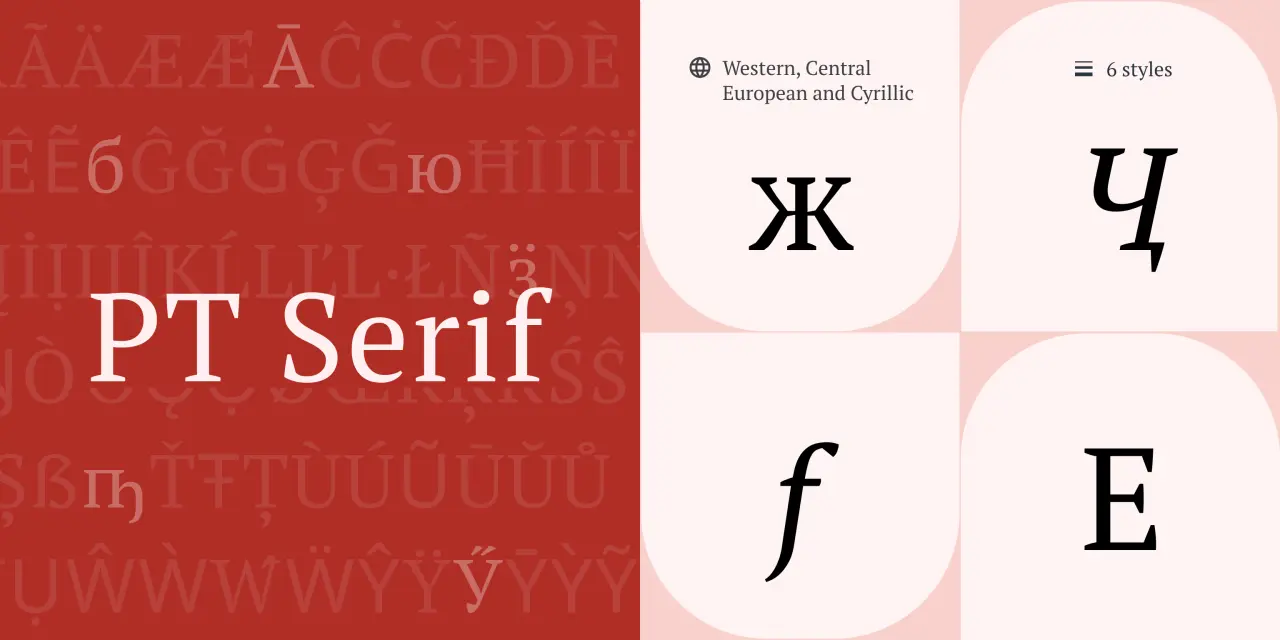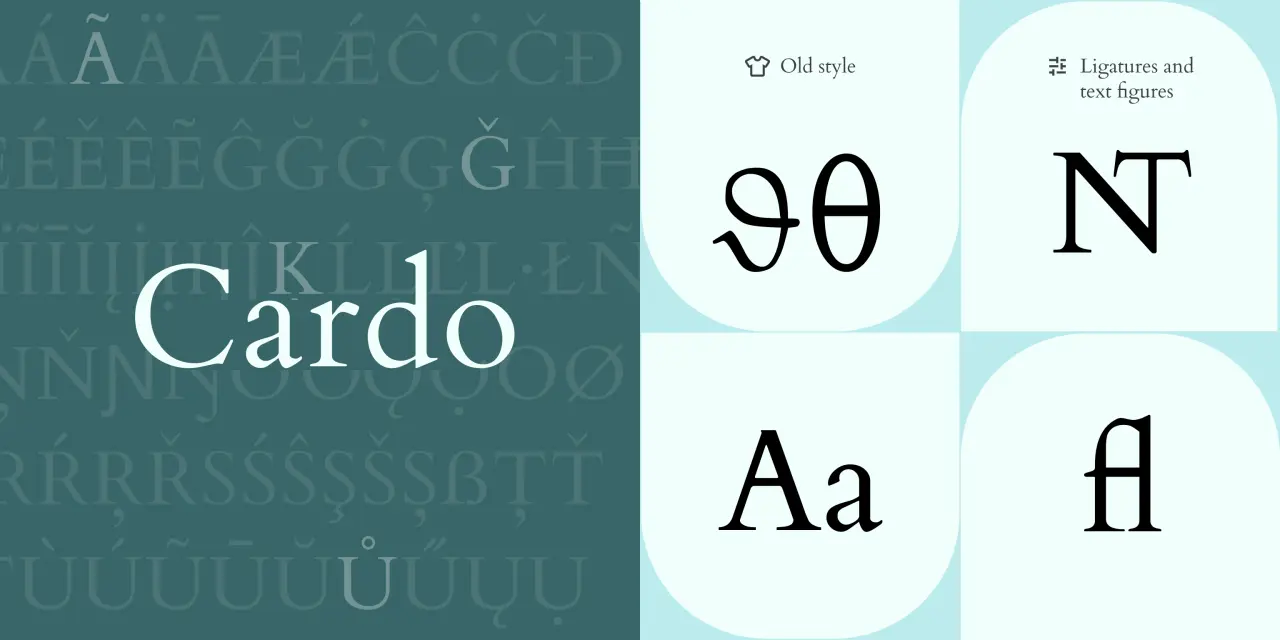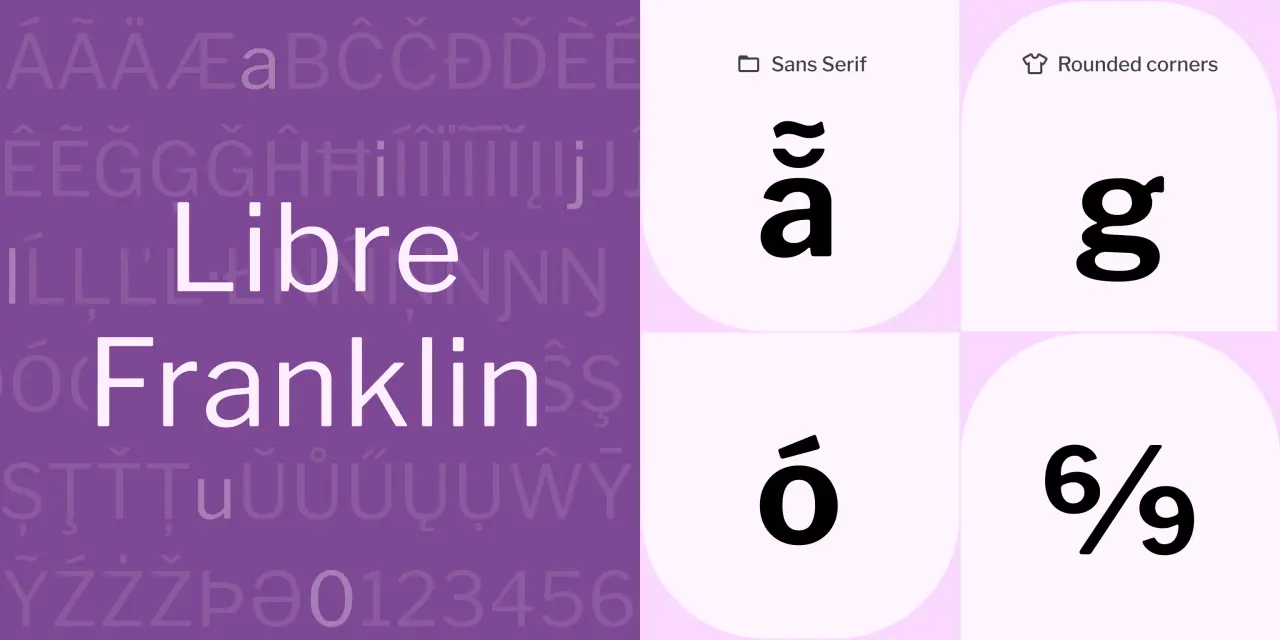
Free fonts are great, and there are thousands on the web to choose from. The problem is, though, most of them can be a bit overused or underwhelming. So how can you save money on type while still getting the high quality you'd expect from a paid-for asset? Two words: Google Fonts.
How to choose
So how do you choose the best Google Font for your project? First, you'll need to check if it's suitable for the design elements you're using. Some fonts, for example, suit normal-sized body text but not large headlines, and vice-versa. You'll also want to know that the font family contains all the features you need. For example, is the font available in a sufficient range of weights and styles? Do you require multiple language support, numbers, fractions, etc.?
You'll also need to consider legibility: it's worth, for example, comparing the O and 0, l and 1, to see how distinguishable they are. And if you need lots of design flexibility, are there multiple widths and optical sizes (different versions of a typeface intended to be used at different sizes), or is the typeface available as a variable font?
With all that in mind, here are our pick of 20 great Google fonts to get started with. They're free and fast to download, with absolutely no commitment, so why not give them all try?
1. DM Sans by Colophon
DM Sans is a low-contrast geometric sans serif design intended for use in smaller text sizes. It was designed by Colophon as an evolution of the Latin portion of ITF Poppins by Jonny Pinhorn. It supports a Latin Extended glyph set, enabling typesetting for English and other Western European languages.
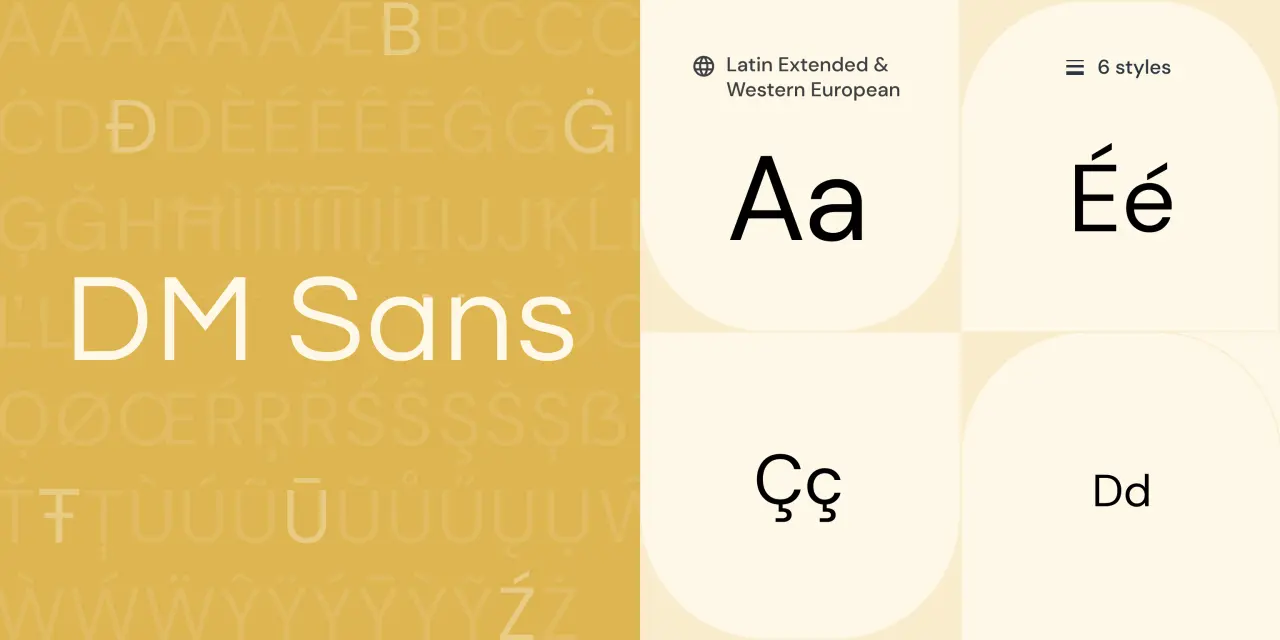
2. Space Grotesk by Florian Karsten
Space Grotesk is a proportional sans-serif based on Colophon's fixed-width Space Mono family (2016). Originally designed by Florian Karsten in 2018, it retains the monospace's idiosyncratic details while optimising for improved readability at non-display sizes.
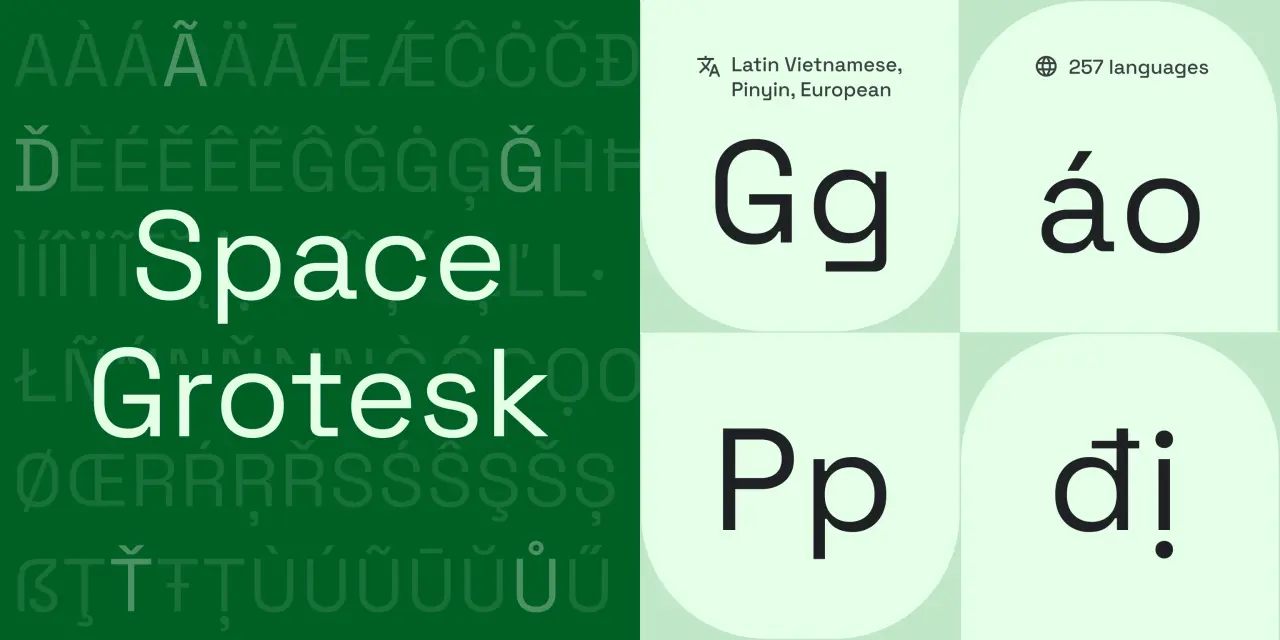
3. Inter by Rasmus Andersson
Led by Swedish software designer Rasmus Andersson, Inter is a variable font designed for computer screens, featuring a tall x-height to aid in the readability of mixed-case and lower-case text. It also includes several OpenType features, including tabular numbers, contextual alternates that adjust punctuation depending on the shape of surrounding glyphs, and a slashed zero for when you need to disambiguate zero from the letter O.
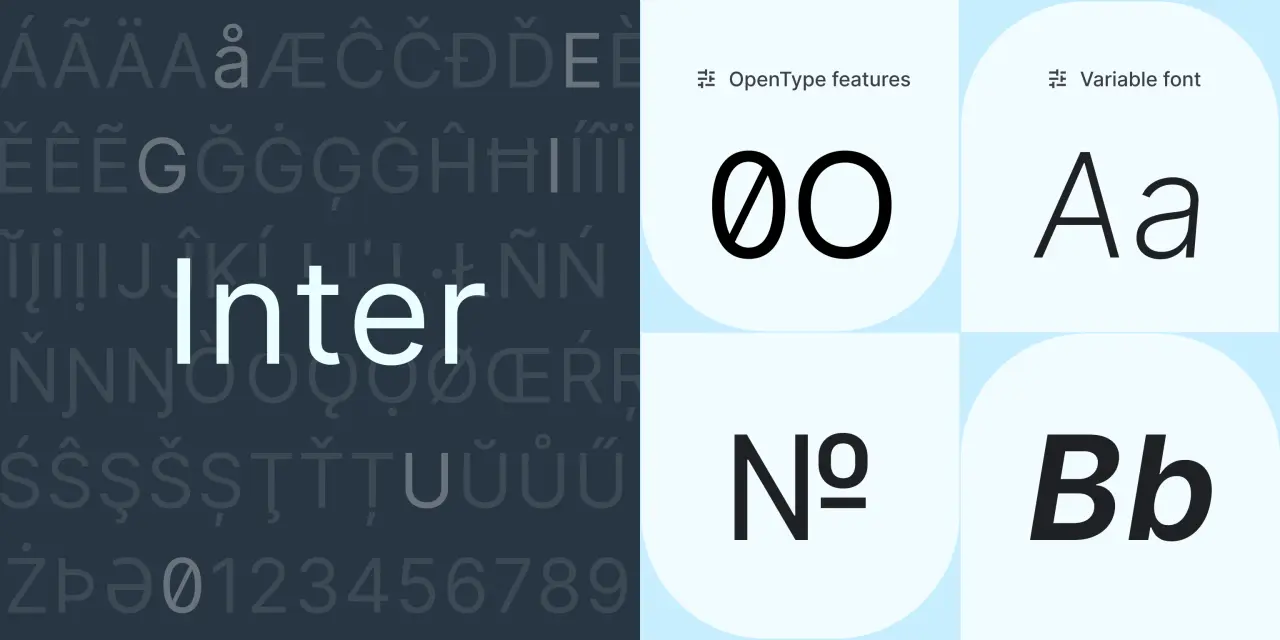
4. Eczar by Vaibhav Singh
Eczar is designed to bring liveliness and vigour to multi-script typesetting in Latin and Devanagari. Providing a strong mix of personality and performance, both at text sizes and in display settings, this font family offers a wide expressive range. The display qualities of the design intensify with a corresponding increase in weight, making the heaviest weights best suited for headlines and display purposes.
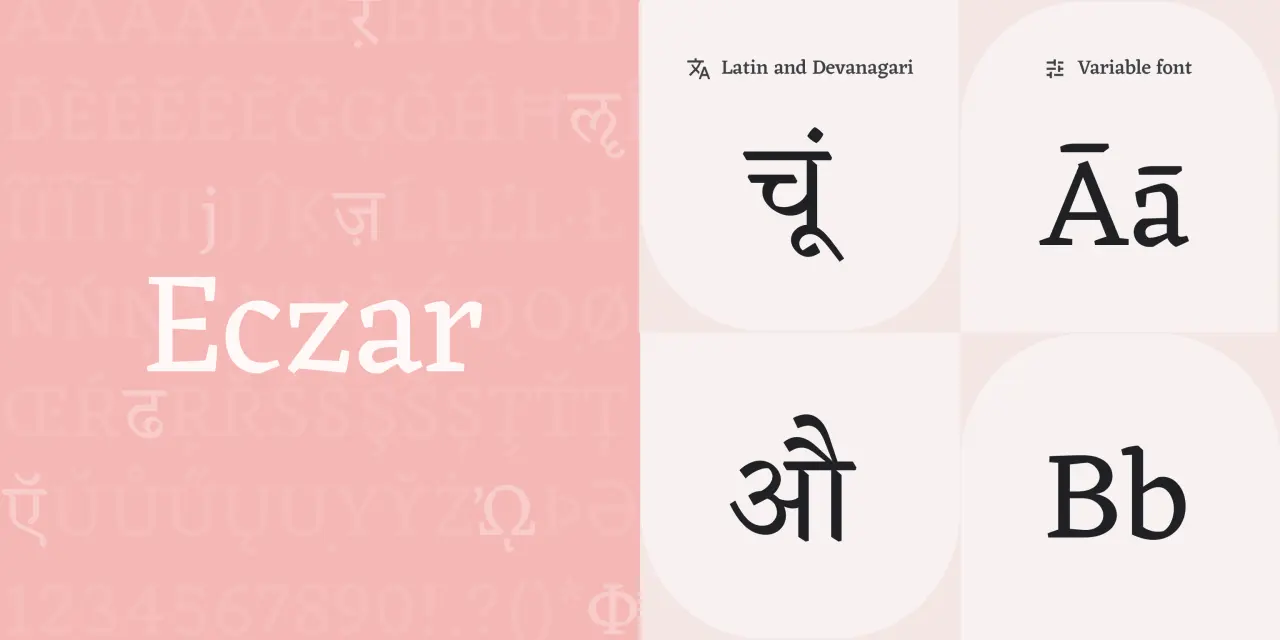
5. Work Sans by Wei Huang
Based loosely on early Grotesques, such as those by Stephenson Blake, Miller and Richard, and Bauerschen Giesserei, Work Sans is simplified and optimised for screen resolutions. For example, diacritic marks are larger than how they'd be in print. The regular weights are optimised for on-screen text usage at medium sizes (14-48px), while those closer to the extreme weights are more suitable for display use.
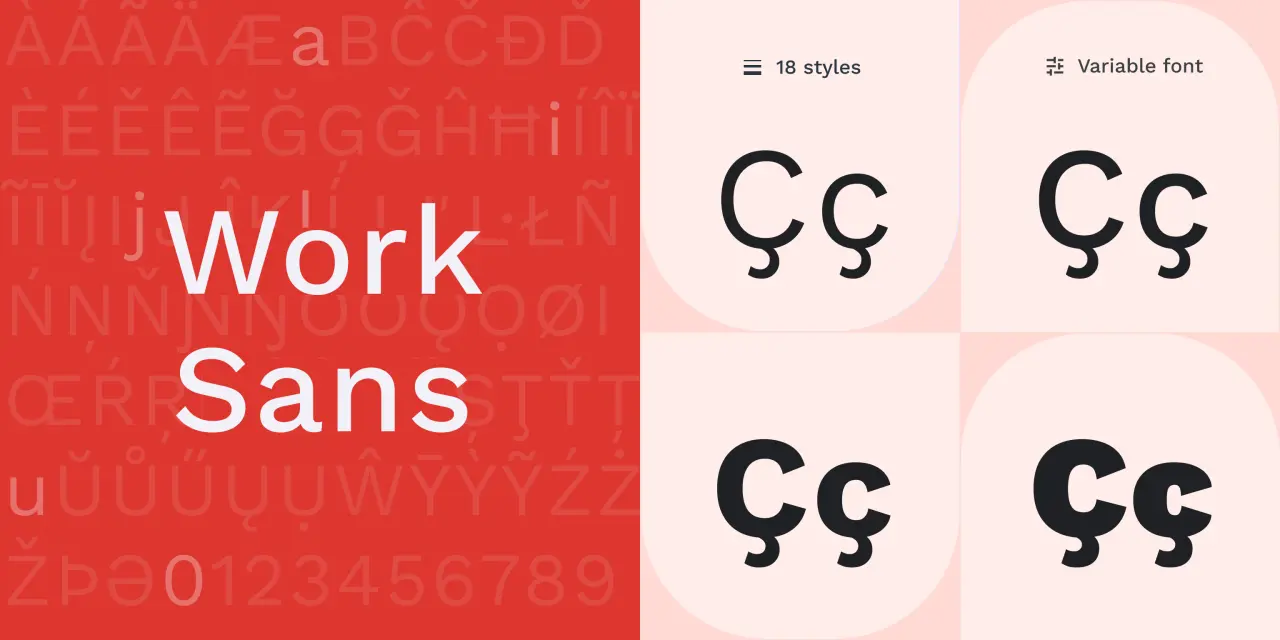
6. Manrope by Mikhail Sharanda and Mirko Velimirovic
In 2018, Mikhail Sharanda designed Manrope, an open-source modern sans-serif font family. A crossover of different font types, it's semi-condensed, semi-rounded, semi-geometric, semi-din and semi-grotesque. It employs minimal stoke thickness variations and a semi-closed aperture. In 2019, Mikhail collaborated with Mirko Velimirovic to convert it into a variable font.
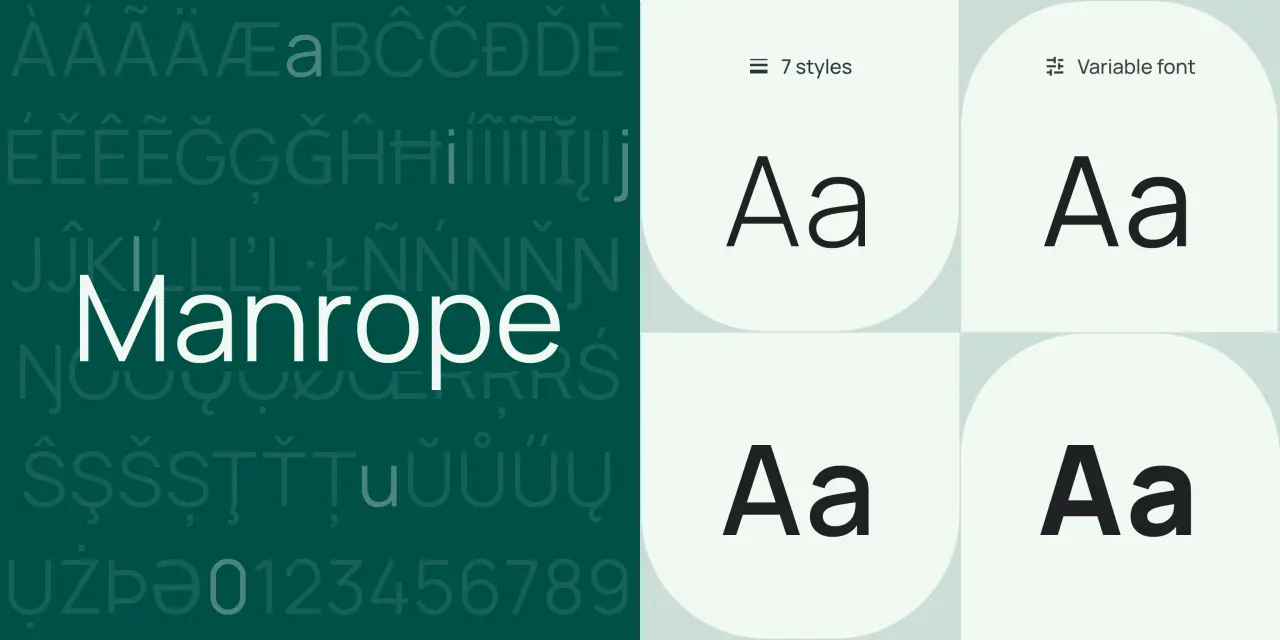
7. Fira by Carrois
Led by Berlin type foundry Carrois, Fira is designed to integrate with the character of Mozilla's FirefoxOS. More broadly, this typeface family aims to cover the legibility needs of a large range of handsets varying in screen quality and rendering. It comes in three widths, all accompanied by italic styles, and includes a Mono Spaced variant.